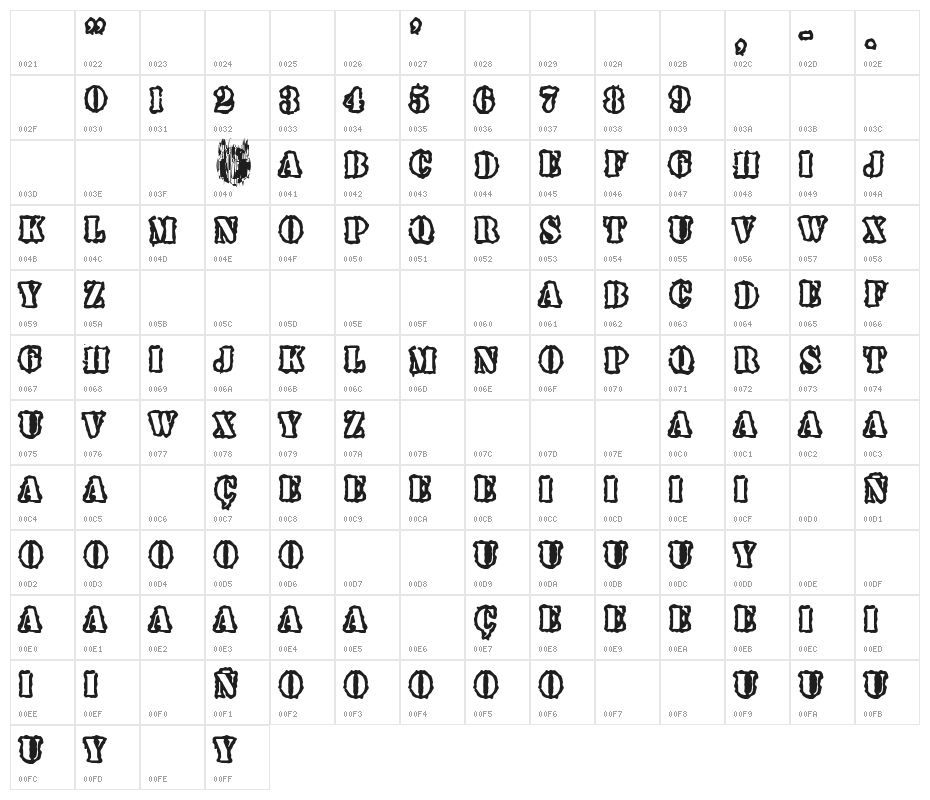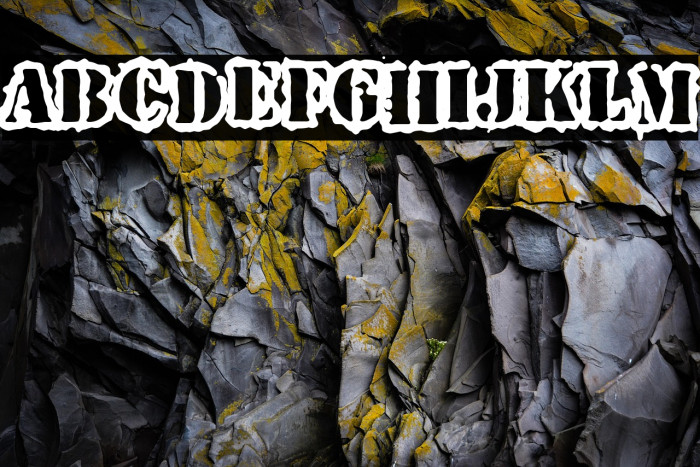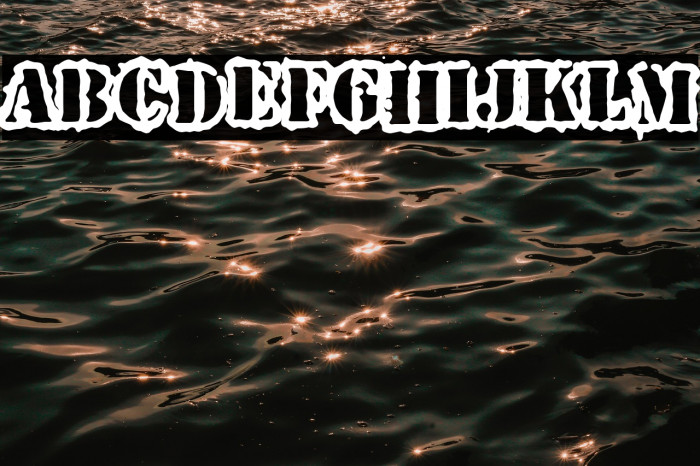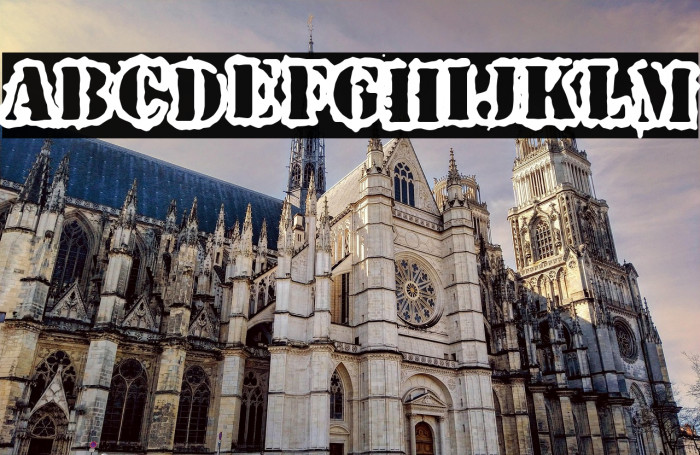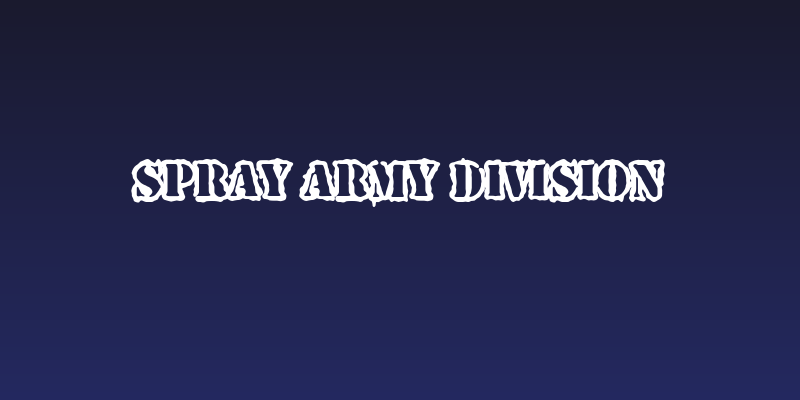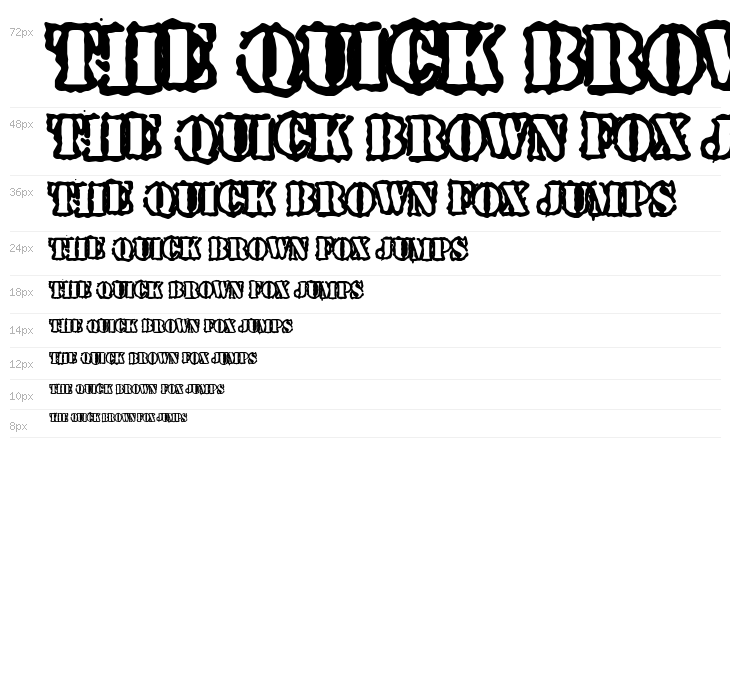
Spray Army Division Font
Spray Army Division Description
This font features a bold, stencil-like design reminiscent of military or industrial themes. The characters are robust and heavily outlined, giving them a strong, impactful presence. Each letter and number is designed with a rugged, distressed texture that adds a sense of authenticity and grit. The font's style is evocative of spray-painted stencils, often used in urban or tactical settings. The uppercase and lowercase letters maintain a consistent style, with the uppercase being slightly more pronounced. The numbers follow the same aesthetic, ensuring uniformity across all characters. This font is ideal for projects that require a bold, assertive look with a touch of edginess.
| Proposed Projects | Ideal for military-themed designs, urban art projects, posters, and branding that requires a strong, impactful look. |